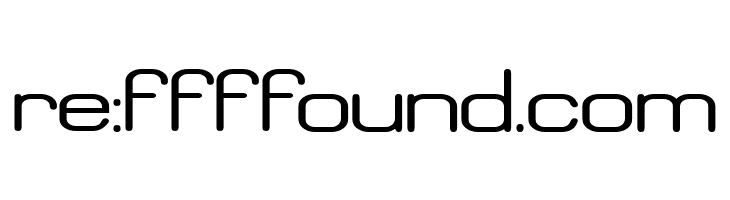
Annapolis Expanded Font
- Font: Annapolis Expanded
- Weight: Expanded
A modern, geometric font with wide, rounded characters and consistent line thickness.